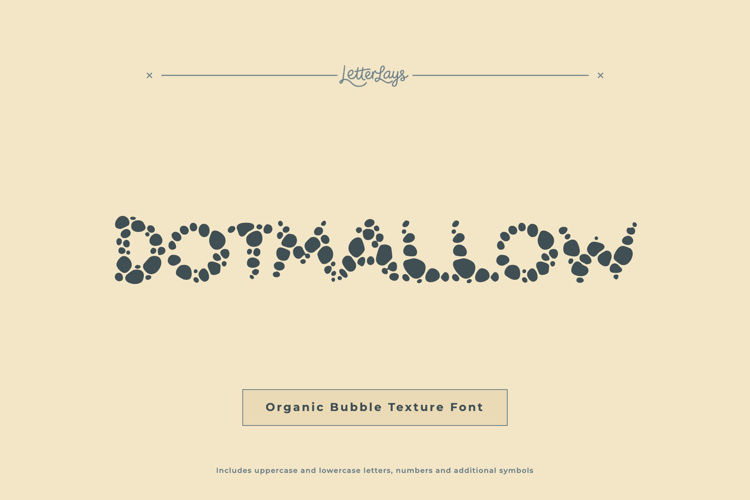
Dotmallow Font
✦ Dotmallow Free is a limited personal-use demo of the full Dotmallow typeface by Letterlays. Create cute logos, bubbly packaging, playful stickers, and cheerful social media graphics with Dotmallow, a rounded bubble display font.
🎨 Style notes: 🍭 Dotmallow is a rounded bubble display typeface designed for cute branding, playful packaging, and cheerful digital graphics.
🔤 This demo includes uppercase Latin letters, numerals and selected basic punctuation for personal mockups, layout tests and concept work.